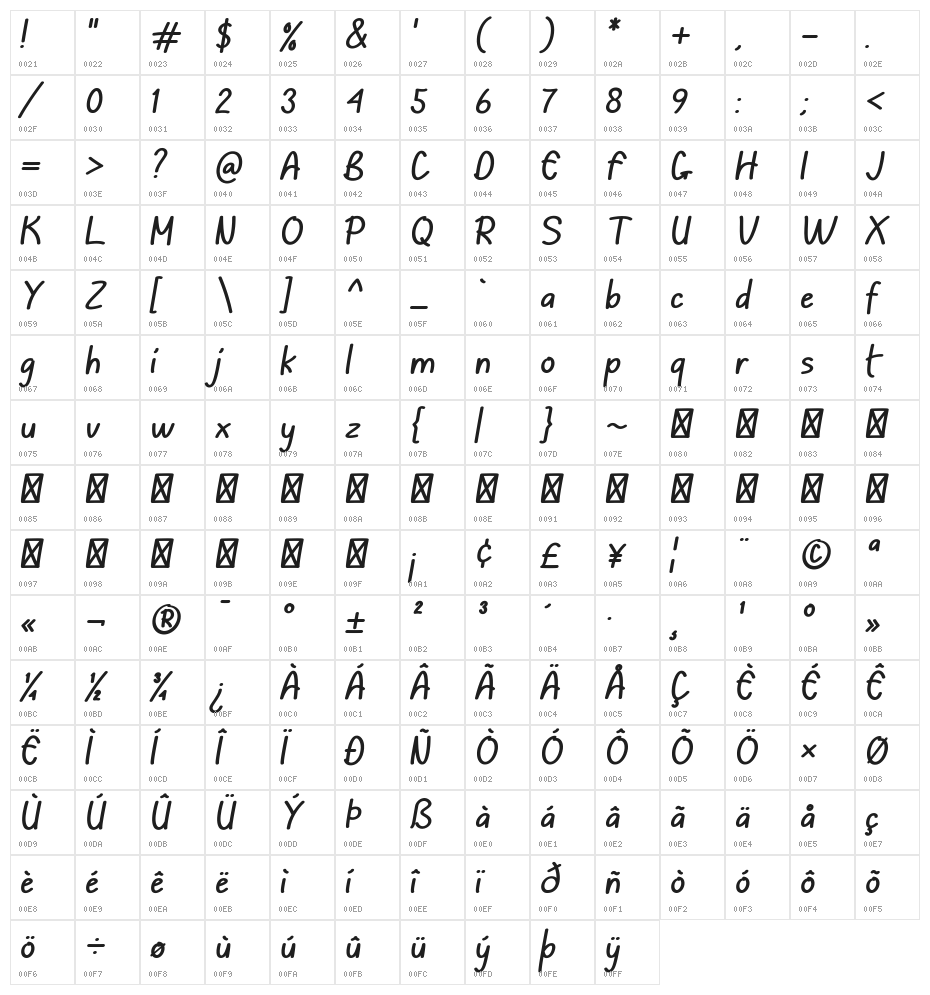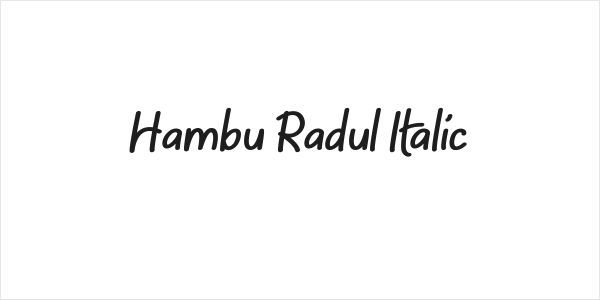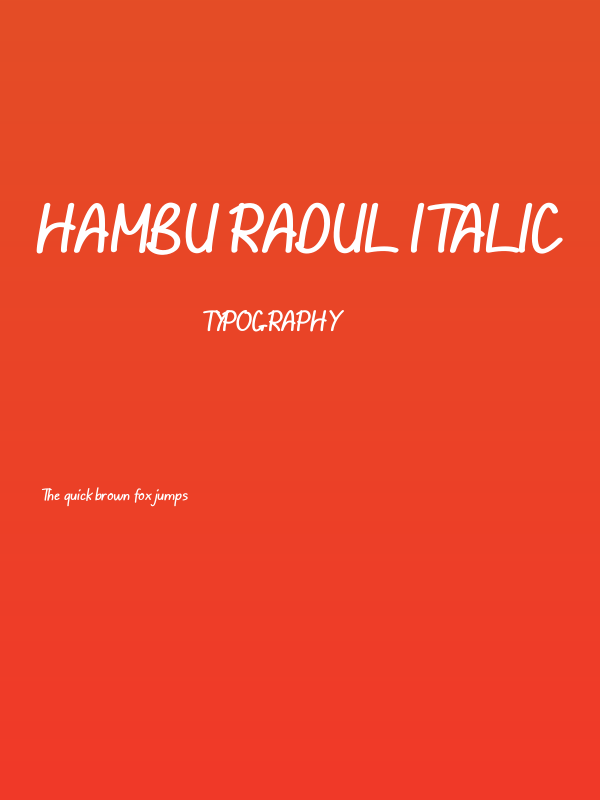
Hambu Radul Italic Font
Hambu Radul Italic Description
This font features a playful and dynamic handwritten style, characterized by its smooth, flowing curves and slightly slanted letters. The uppercase and lowercase letters maintain a consistent rhythm, with rounded edges that convey a sense of warmth and approachability. The numerals are well-integrated, matching the overall aesthetic with their rounded forms. Special characters are thoughtfully designed, ensuring they blend seamlessly with the alphabetic characters. The font's casual elegance makes it suitable for a variety of creative applications.
Overall StyleCasual, Playful
Use CaseLogos, Invitations, Greeting Cards
Proposed ProjectsIdeal for greeting cards, invitations, personal branding, and creative projects that require a friendly and approachable touch.